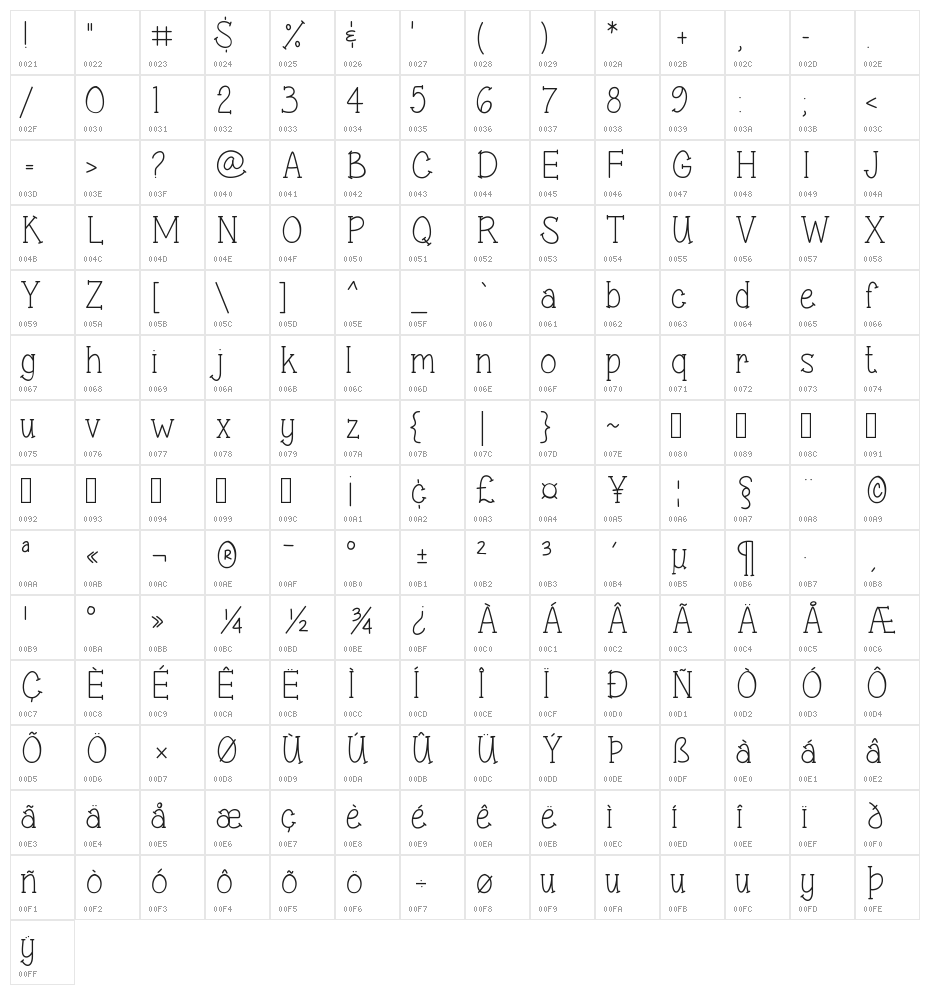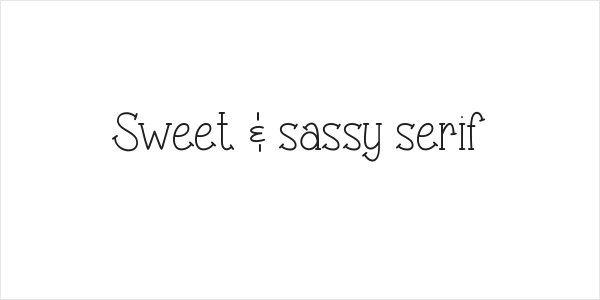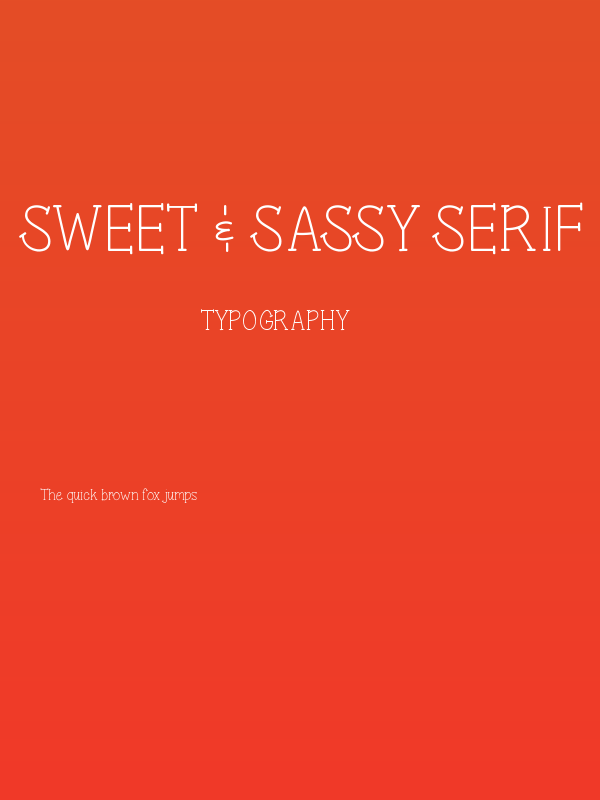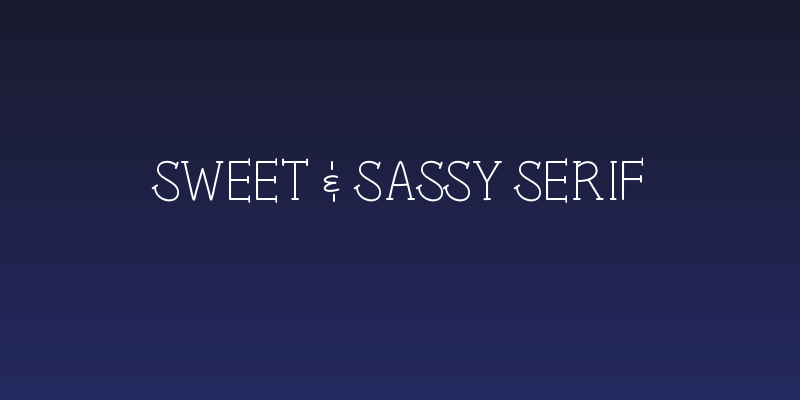
Sweet & sassy serif Font
Sweet & sassy serif Description
This font features a playful and whimsical design, characterized by its unique blend of serif and script elements. The uppercase letters are tall and slender, with subtle curves and delicate serifs that add a touch of elegance. The lowercase letters maintain a consistent style, with rounded forms and a slight slant that gives them a handwritten feel. The numerals are clear and distinct, matching the overall aesthetic with their balanced proportions. Special characters are thoughtfully designed, maintaining the font's cohesive look. This font's charm lies in its ability to convey both sophistication and approachability, making it versatile for various design needs.
| Proposed Projects | Ideal for wedding invitations, greeting cards, branding projects, and playful editorial designs. |